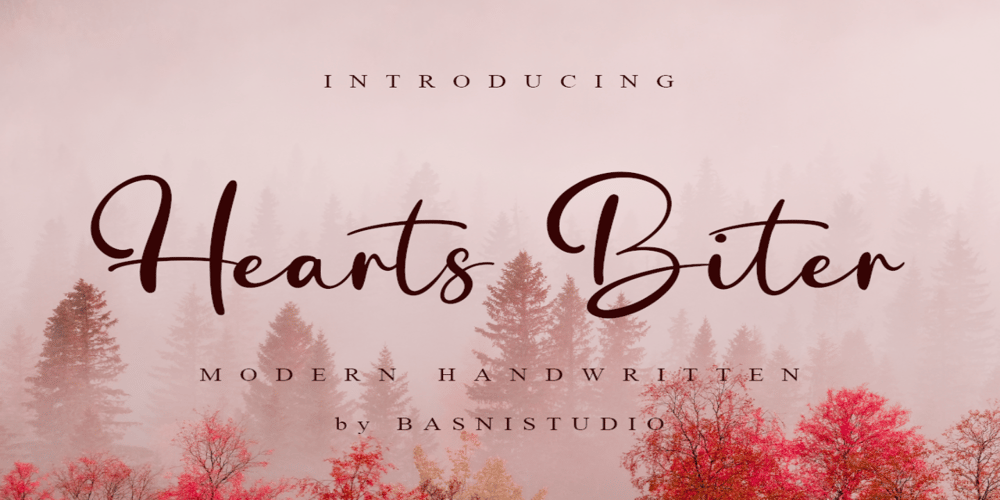
Hearts Biter Font Family was designed by Bery Arisandi and published by Basnistudio. Hearts Biter contains 1 styles and family package options. Introducing Hearts Biter a Modern Handwritten Font, made with Love, Precision and Stylish, perfect for branding, websites, and editorial designs. Includes all Character letters, multilingual support, punctuation, binding. everything can be easily accessed using software that supports OpenType.Thank You Very Much